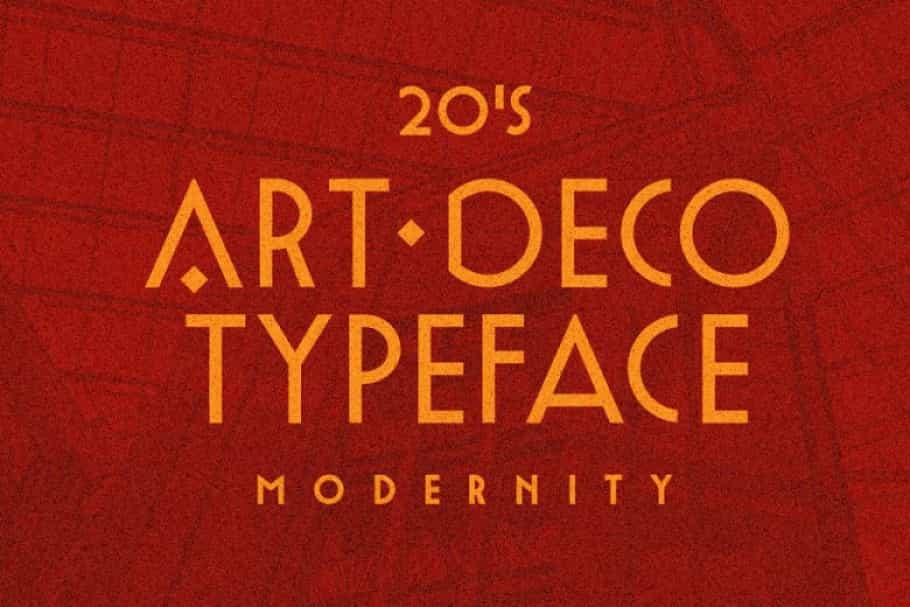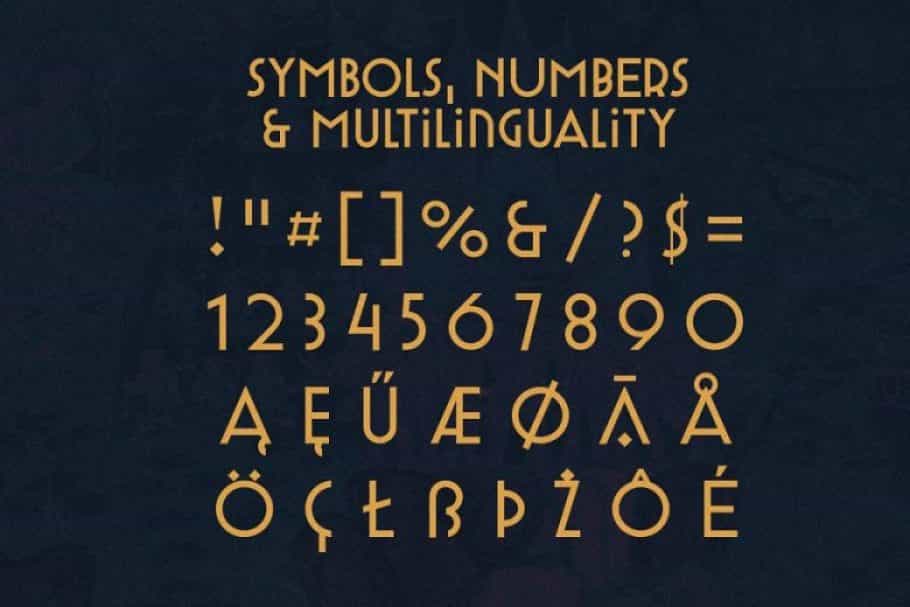
Artographie by Mans Greback was released in 2019 and 2020 as a modern sans-serif family in the Art Deco style, which was optimized for use in various projects: the typeface has been reimagined according to today’s requirements and technologies. This typeface offers five styles: It has four styles namely Light, Thin Medium, Bold, and Black.